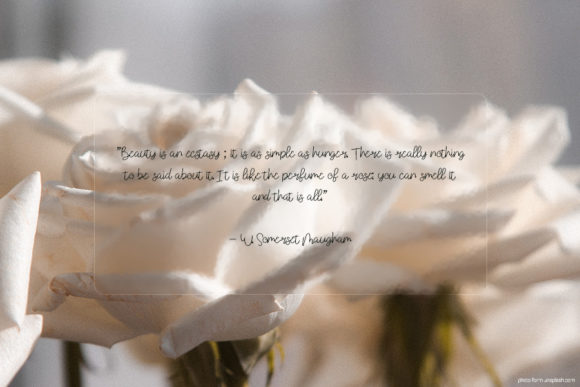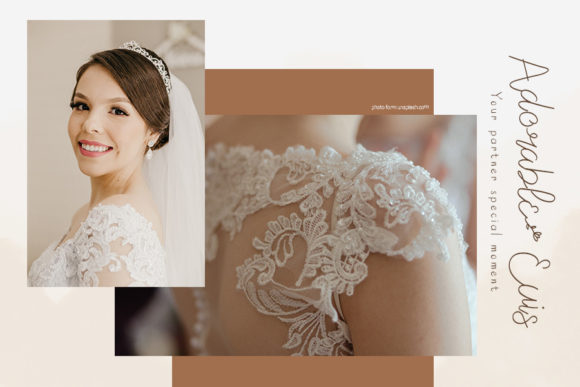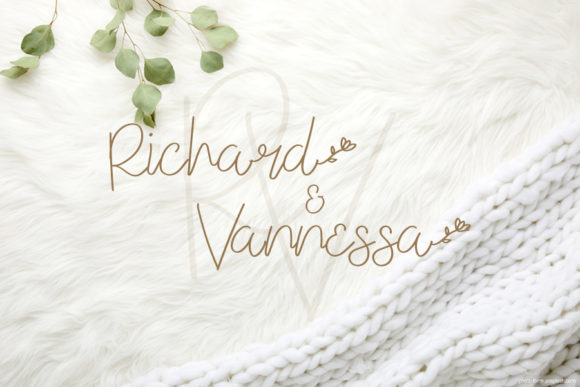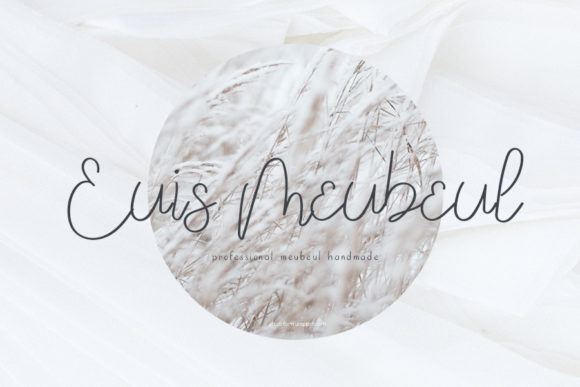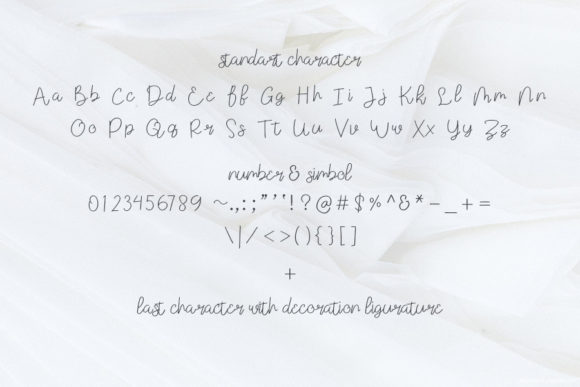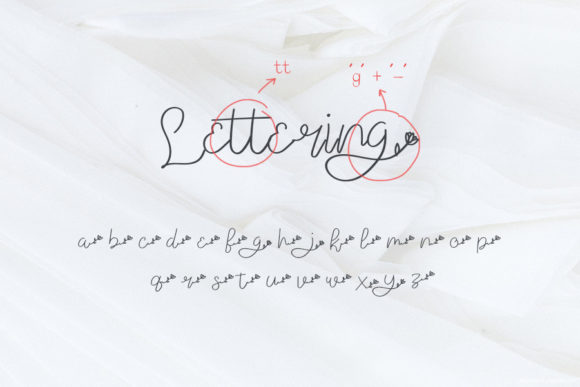
The Perfect Script: Unveiling the Beauty of Euis Sayang Font
Have you ever stared at a beautiful handwritten note from a loved one, only to be inspired to create something just as lovely? That’s exactly what happened to me when I first laid eyes on the Euis Sayang Font. Its elegant curves and refined lines seemed to dance across the page, beckoning me to try it out for myself.
As a designer, I know how valuable it is to have a versatile font at your disposal. The Euis Sayang Font is a game-changer for any project that requires a touch of class and sophistication. Whether you’re designing a logo, a wedding invitation, or a social media post, this beautiful script font is sure to elevate your work and leave a lasting impression.
- Unique Characteristics: Euis Sayang Font features a modern, elegant design with a mix of round and geometric shapes, making it suitable for a variety of applications, including advertising, packaging, and editorial design.
Euis Sayang Font Review
Overall, I think Euis Sayang is a solid choice for designers looking for a beautiful, elegant script font. ✨ The font is incredibly versatile, working well in both digital and print projects.
- ✨ It has a high legibility factor, making it perfect for large bodies of text, such as blog posts or articles.
- ✨ The font’s fluid, organic feel lends itself well to creative projects, like book covers or invitations.
- ✨ It’s also highly customizable, allowing designers to tweak the font to suit their project’s unique needs.
- ⚠️ The font may not be suitable for projects that require a bold, attention-grabbing font. It’s a more subtle choice.
- ⚠️ Some users may find the font’s irregularities to be distracting or difficult to read at very small sizes.
- ⚠️ Unfortunately, the font does not include a comprehensive character set, which may limit its use in languages that require a wide range of characters.
Overall, I think Euis Sayang is a great choice for designers who want a beautiful, elegant script font. While it may have some limitations, its versatility and high legibility factor make it a great addition to any designer’s toolkit.
Tips for Getting the Most Out of Euis Sayang
Use Euis Sayang for titles and headings to add a touch of elegance to your designs.
Combine Euis Sayang with other fonts for a unique and interesting font combination.
Use Euis Sayang for:
Wedding websites and social media graphics
Food and beverage branding